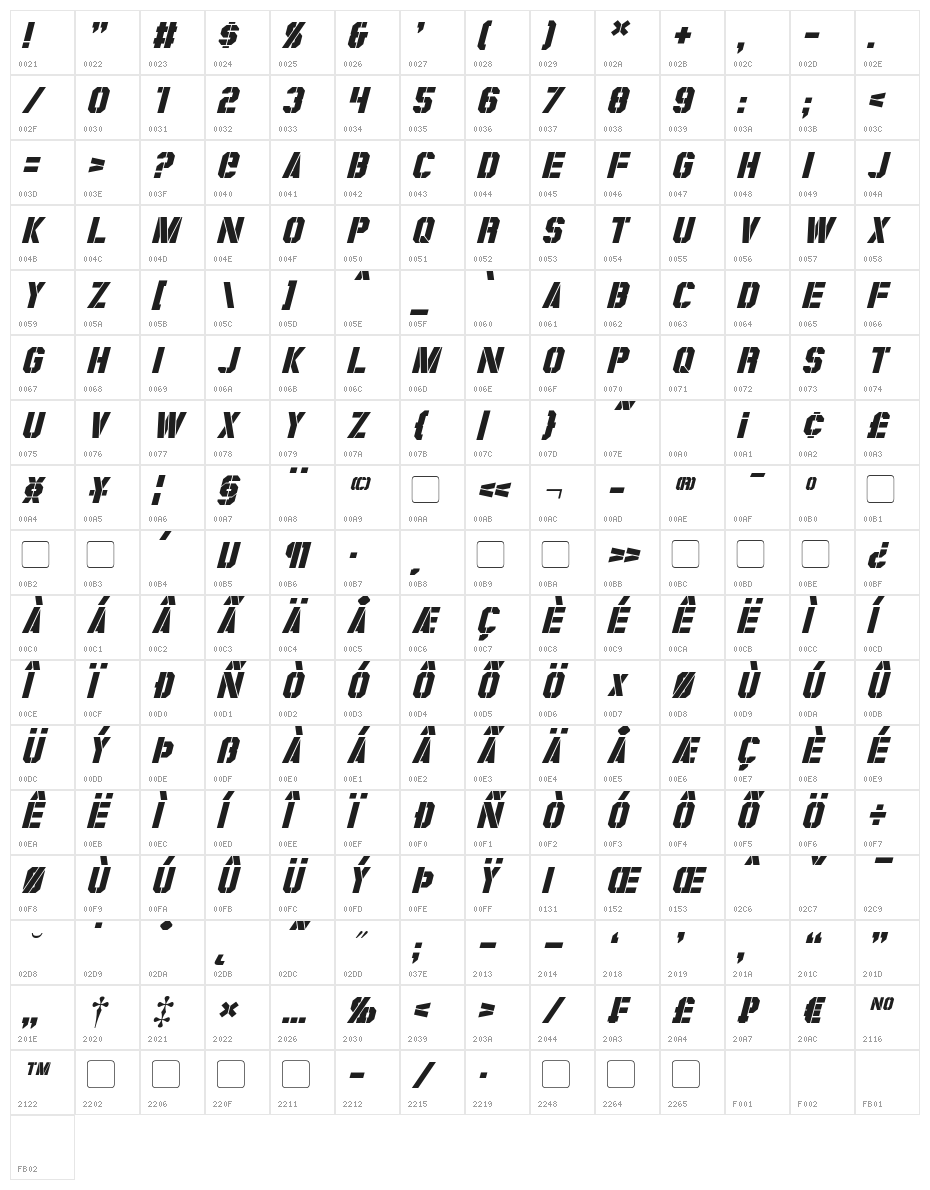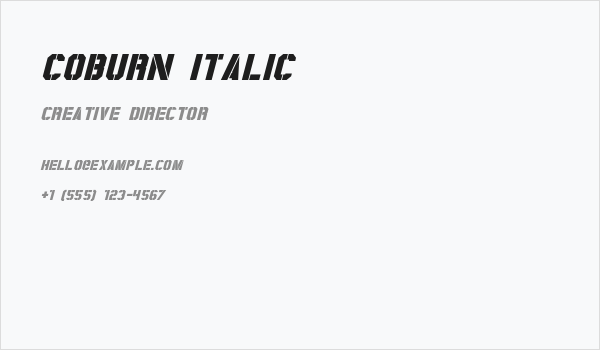
Coburn Italic Font
Coburn Italic Description
This font features a bold, italicized style with a distinct geometric and angular design. Each character is crafted with sharp edges and diagonal cuts, creating a dynamic and energetic appearance. The uppercase and lowercase letters maintain a consistent slant, enhancing the italic effect. The numbers and special characters follow the same angular and bold design, ensuring uniformity across all glyphs. The font's strong presence makes it suitable for attention-grabbing headlines and impactful designs.
| Proposed Projects | Ideal for sports branding, dynamic posters, and modern advertising campaigns. |